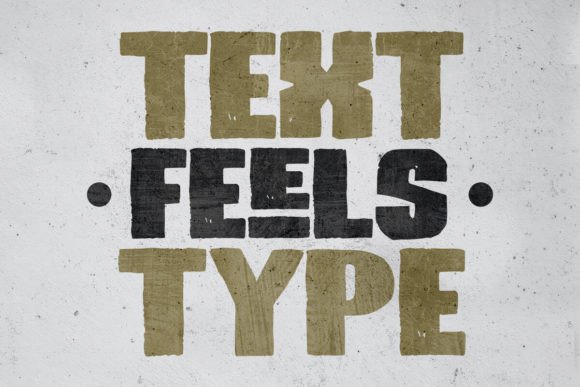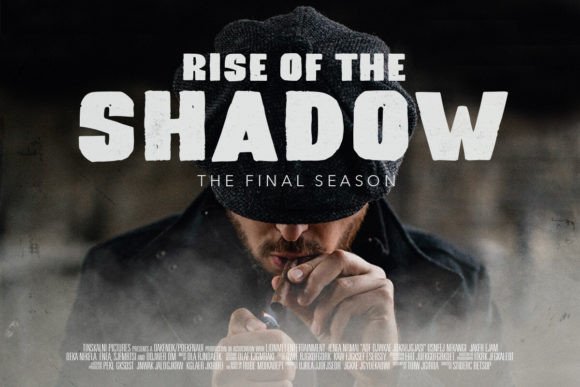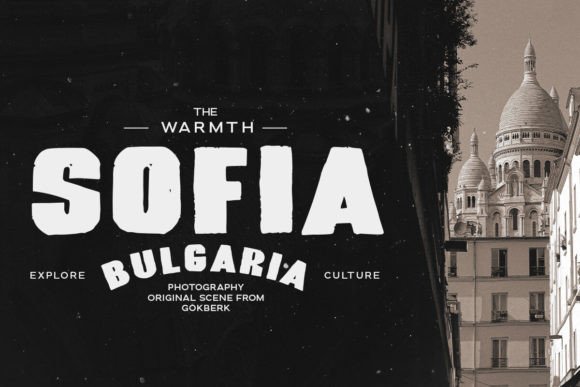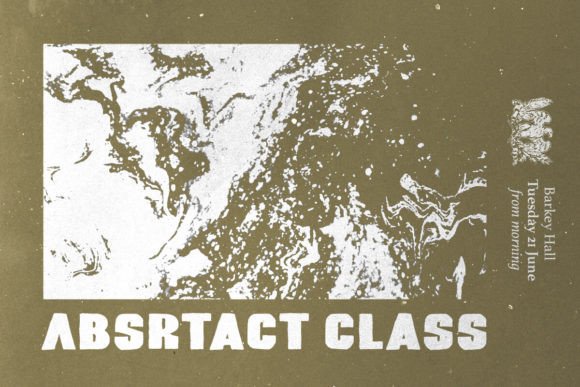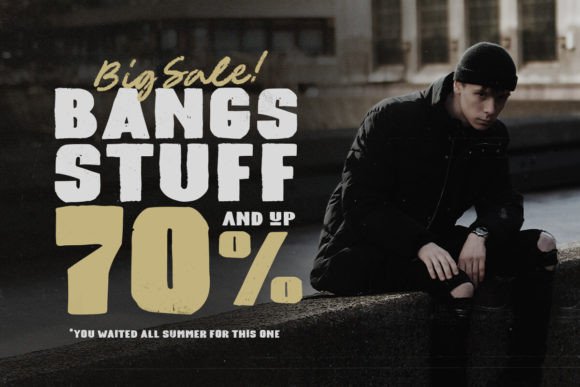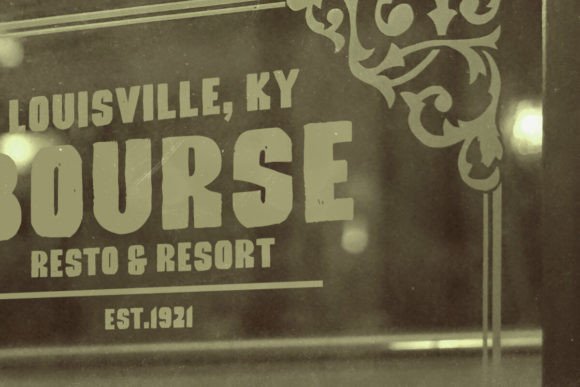
Introducing Dexlite Font: The Ultimate Choice for Vintage Posters
In the world of typography, fonts play a crucial role in conveying the message and aesthetic of a design. For designers and crafters looking to create vintage posters with a unique, handmade look, Dexlite Font is an excellent choice. This bold and strong font is designed to add a touch of ruggedness and texture to your projects, making them stand out from the crowd.
The Characteristics of Dexlite Font
Dexlite Font is distinguished by its textured and rough shape, which gives it a distinctive, handcrafted feel. This font is perfect for designers who want to add a layer of depth and character to their work. The bold and strong appearance of Dexlite ensures that your text will be easily readable, even at smaller sizes, while still maintaining a visually appealing aesthetic.
Ideal for Vintage Posters
Vintage posters often evoke a sense of nostalgia and authenticity, and the right font can make all the difference in achieving this look. Dexlite Font, with its rough and textured appearance, is specifically designed to complement vintage-style designs. It adds a level of authenticity and handmade charm that is hard to replicate with smoother, more polished fonts.
Standing Out with Dexlite
In a world where designs are constantly competing for attention, it’s essential to have elements that make your project stand out. Dexlite Font, with its strong and bold appearance, ensures that your text will not only be noticed but also remembered. Whether you’re working on a poster, a flyer, or any other design project, Dexlite can help elevate your work from ordinary to extraordinary.
Multi-Language Support
In today’s globalized world, design projects often need to cater to a diverse audience. Understanding this need, Dexlite Font comes with multi-language support. This feature makes it an incredibly versatile font, suitable for projects aimed at international audiences. Whether your project is in English, Spanish, French, or any other language, Dexlite ensures that your text will look great and be easily readable.
Why Choose Dexlite Font?
- Unique Aesthetic: Dexlite offers a unique, textured, and rough appearance that sets it apart from more conventional fonts.
- Vintage Appeal: Its handmade look makes it perfect for vintage-style posters and designs.
- Readability: Despite its bold and textured appearance, Dexlite maintains high readability, even at smaller sizes.
- Versatility: With multi-language support, Dexlite is suitable for a wide range of projects and audiences.
- Impact: It adds a strong and bold look to your project, ensuring it stands out.
Tips for Using Dexlite Font
To make the most out of Dexlite Font, consider the following tips:
- Pair with Simpler Fonts: For body text, consider pairing Dexlite with a simpler, sans-serif font to create contrast and ensure readability.
- Experiment with Colors: Dexlite’s textured appearance works well with a variety of colors. Experiment with different shades and gradients to find the perfect match for your project.
- Adjust Size and Weight: Don’t be afraid to play around with the size and weight of Dexlite to achieve the desired impact.
Dexlite Font is a powerful tool for designers and crafters looking to add a bold, strong, and uniquely textured element to their projects. Its suitability for vintage posters, coupled with multi-language support, makes it an excellent choice for a wide range of design needs. By incorporating Dexlite into your design toolkit, you’ll be well-equipped to create visually striking and memorable projects that stand out from the crowd.